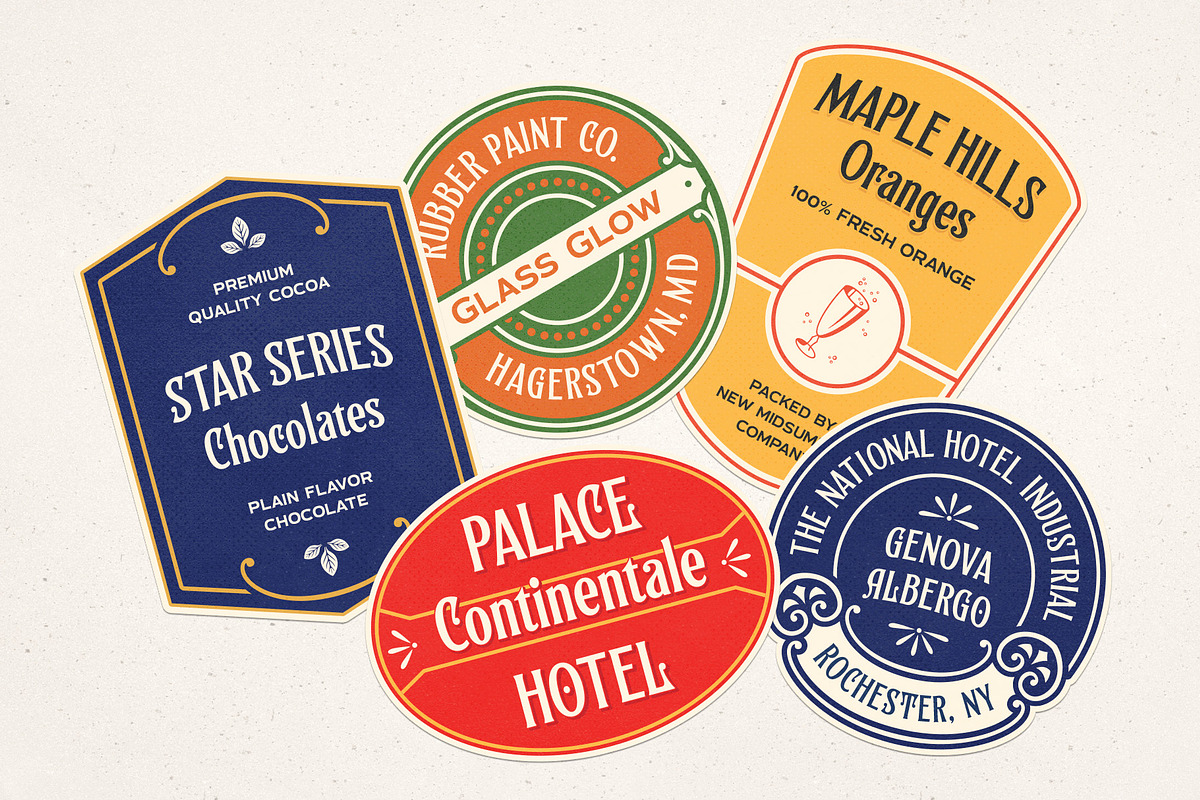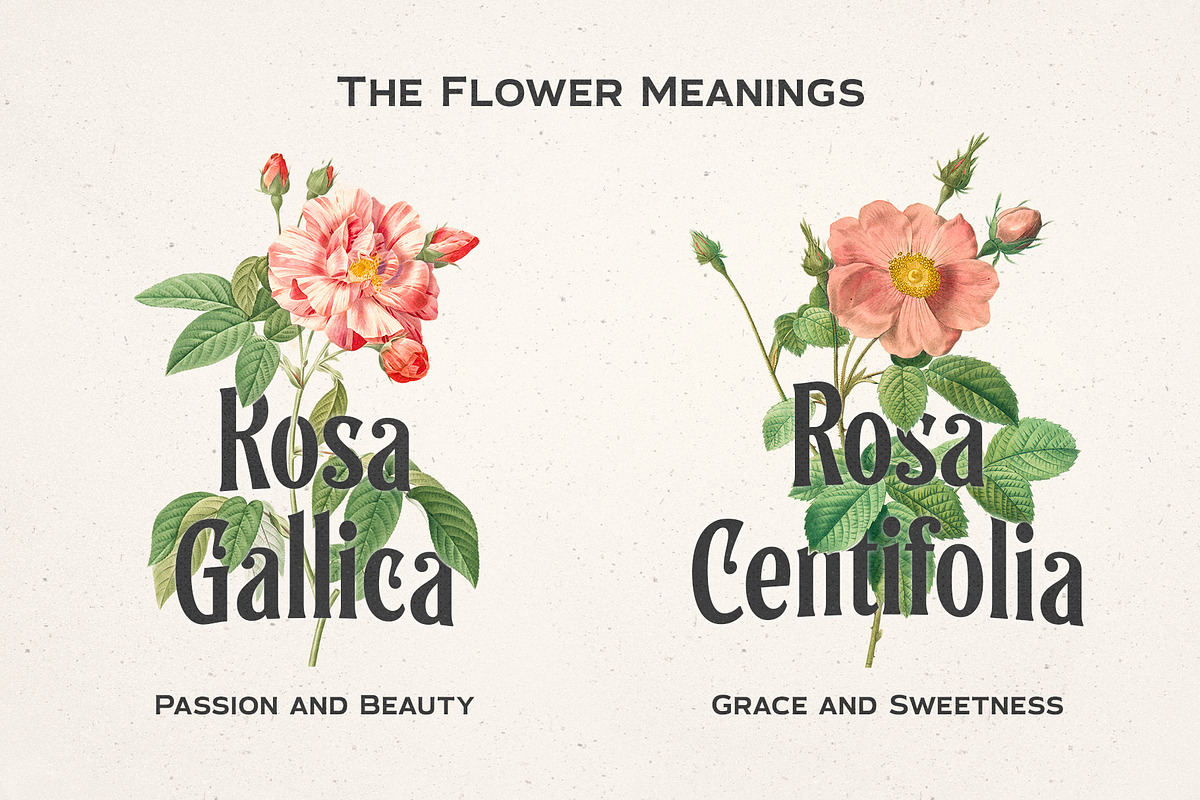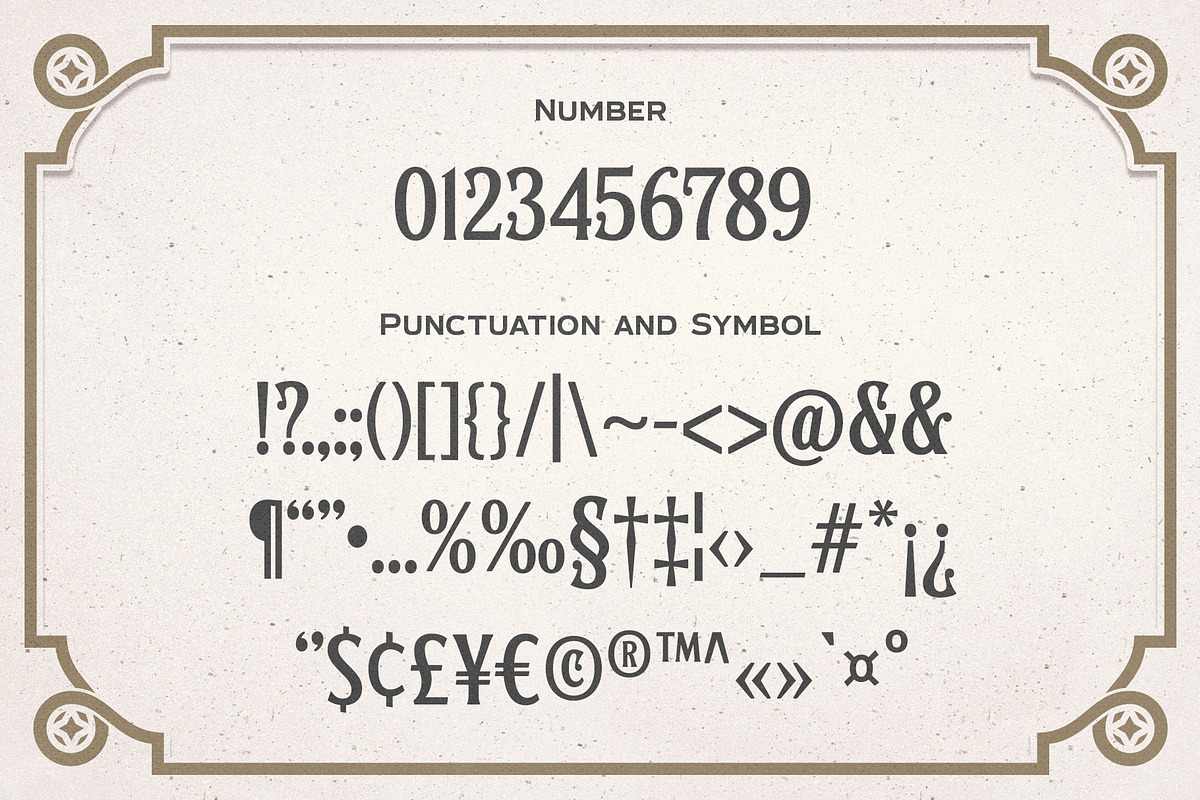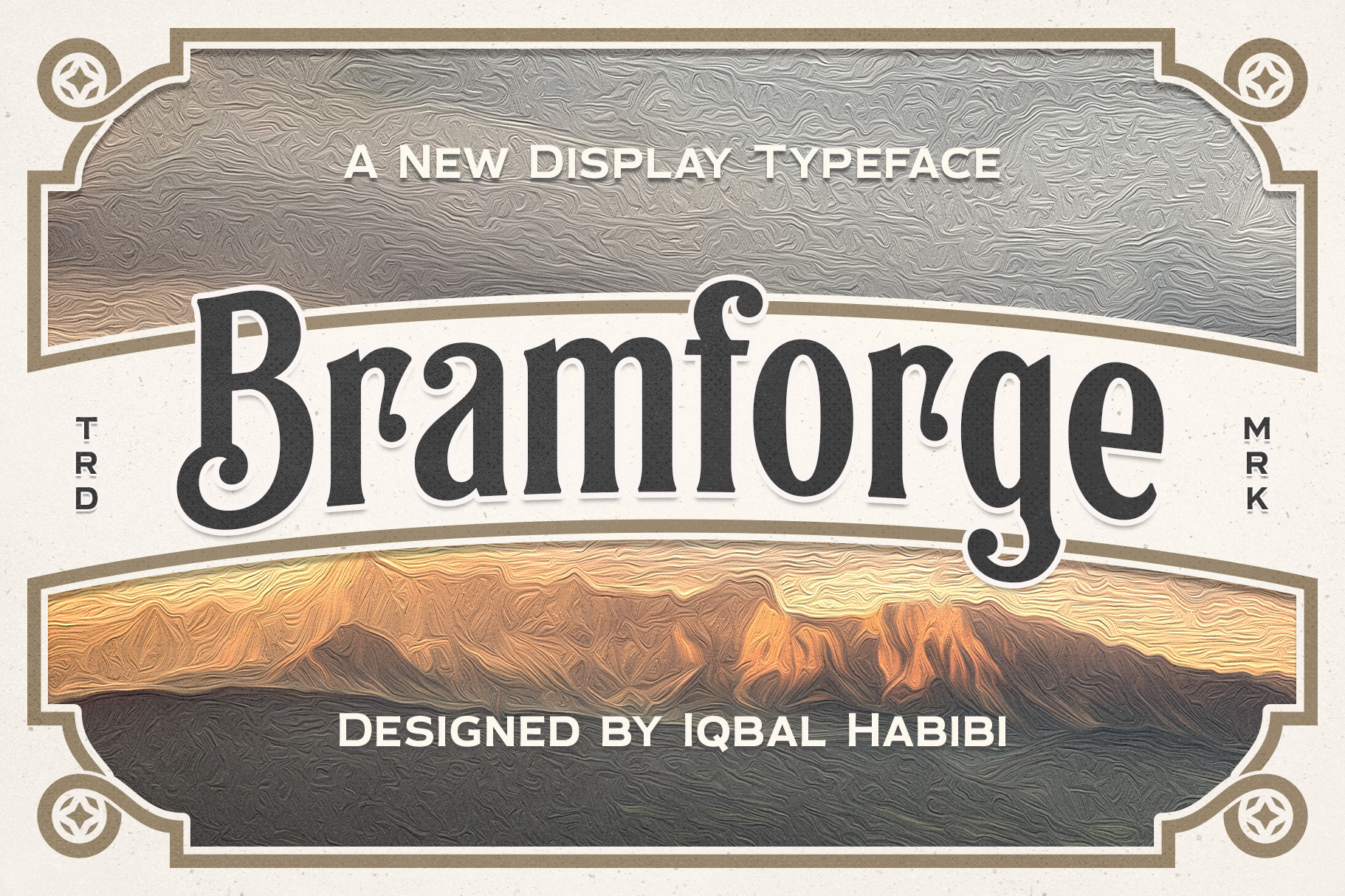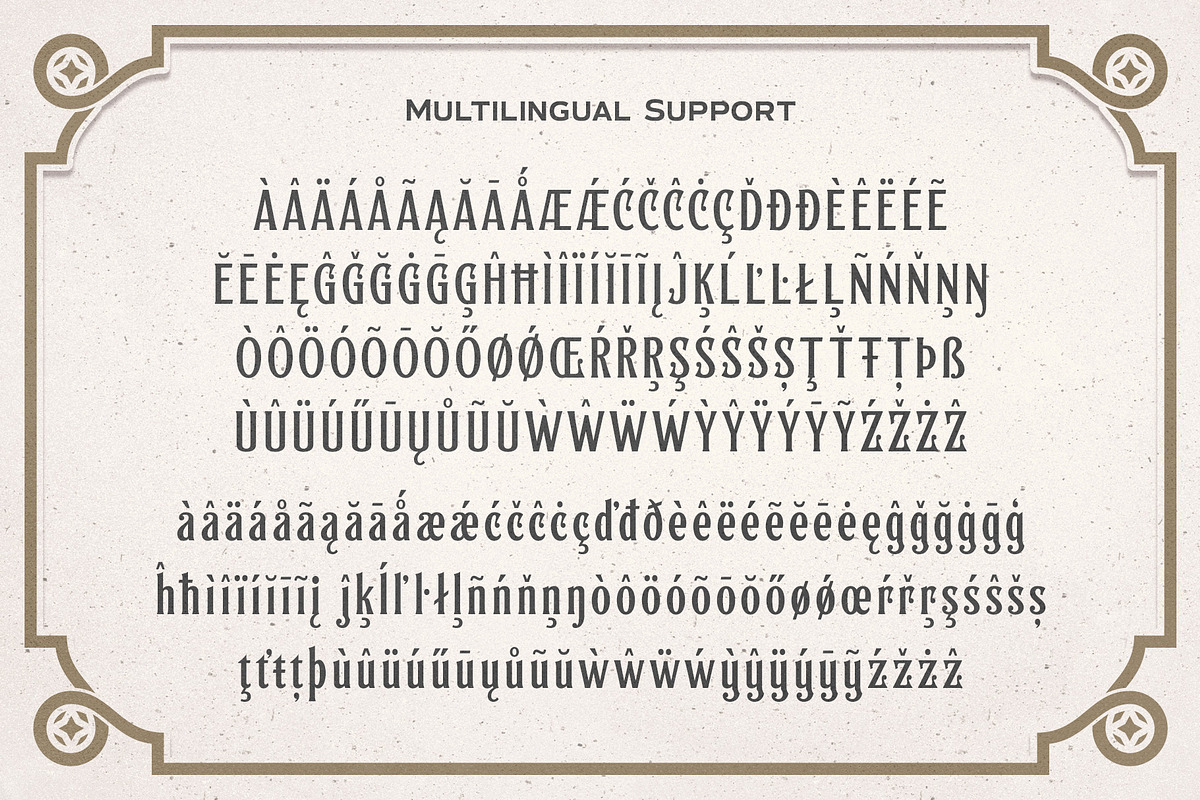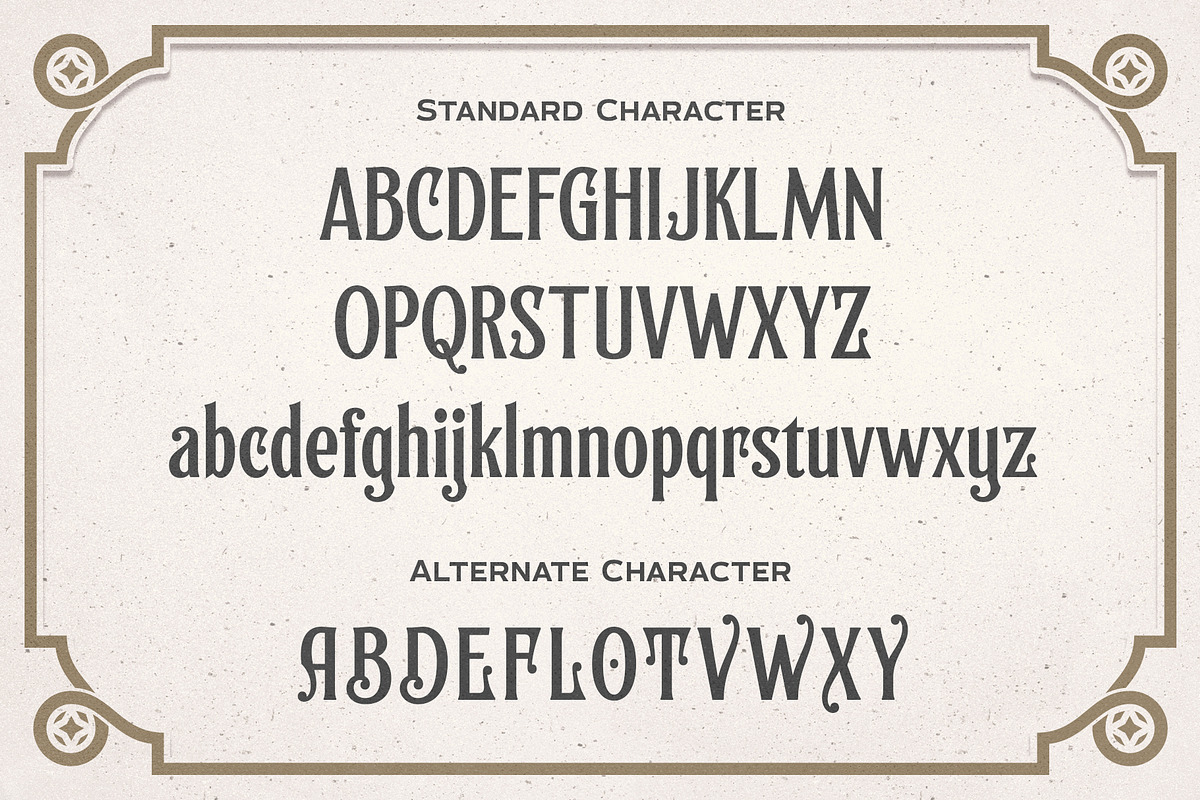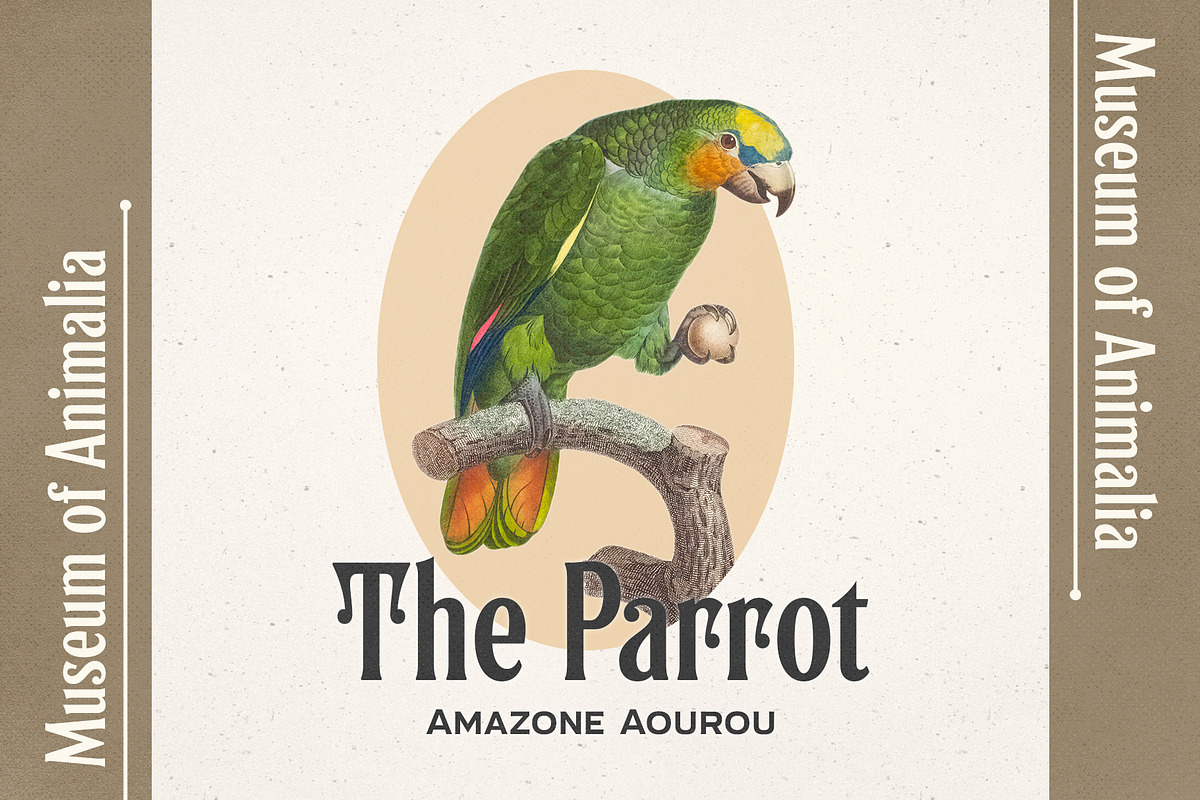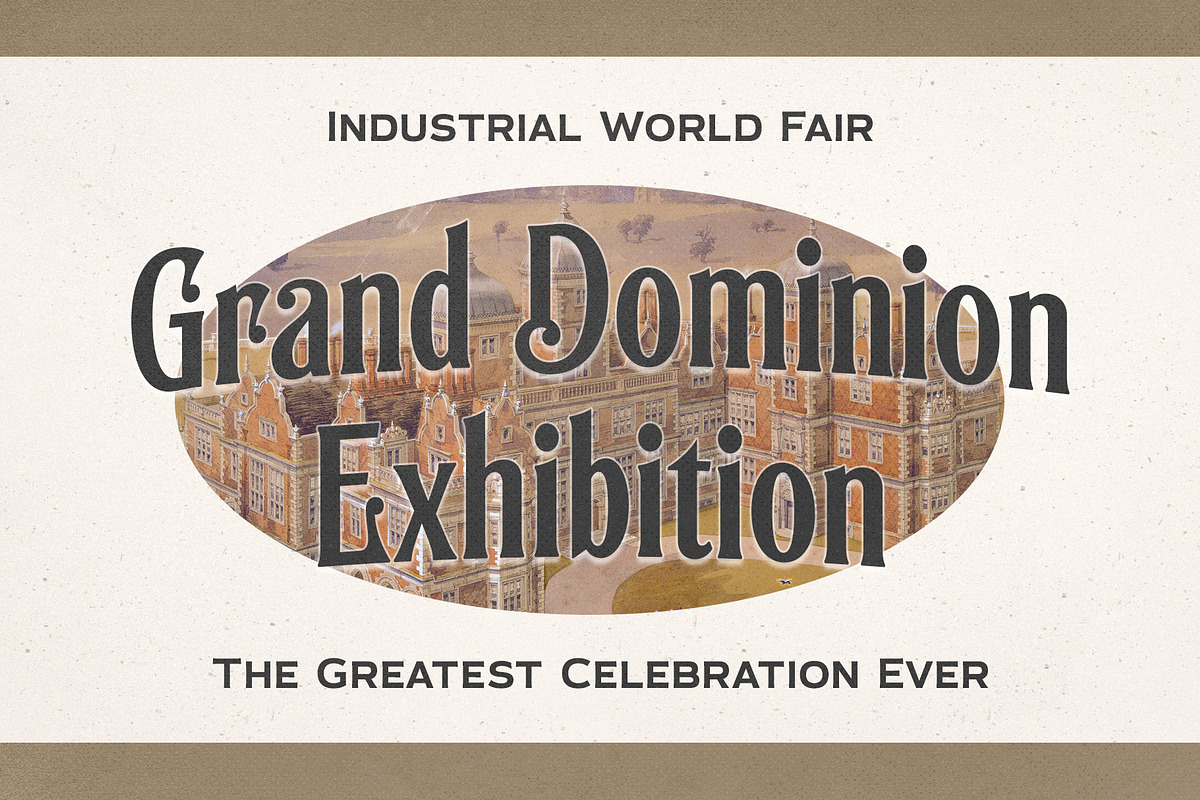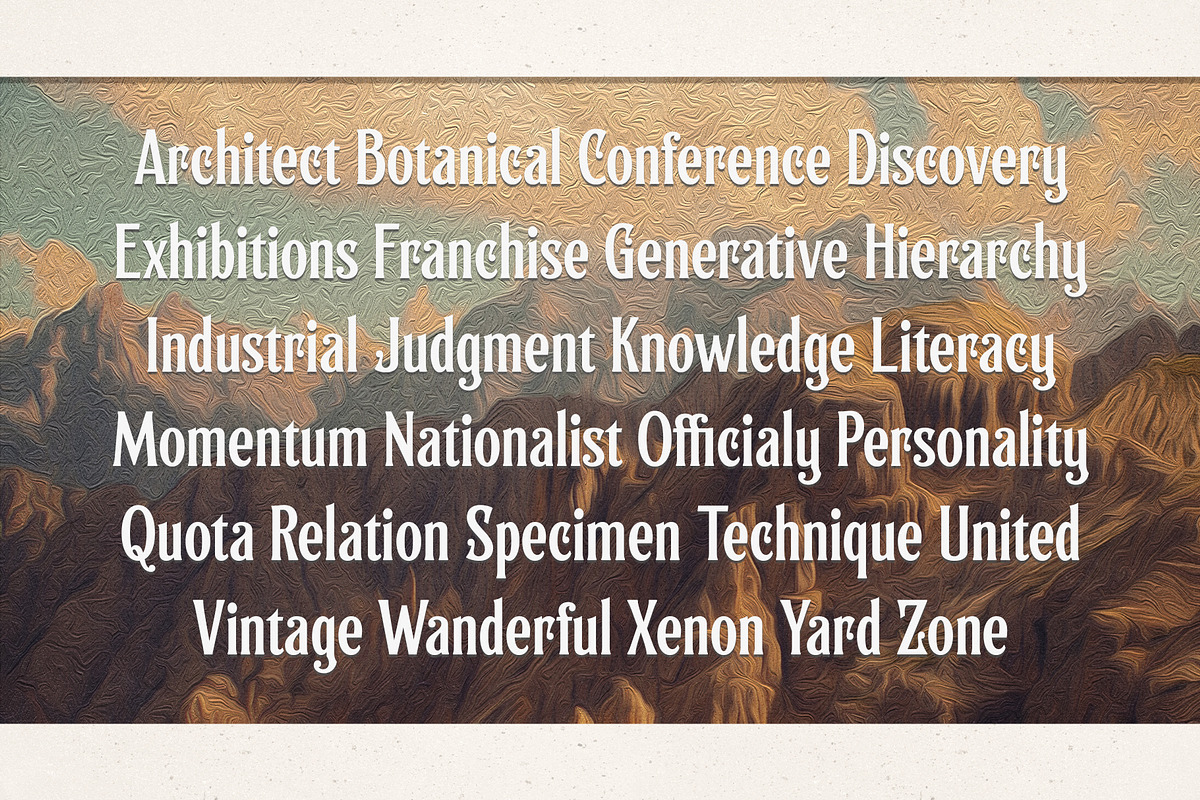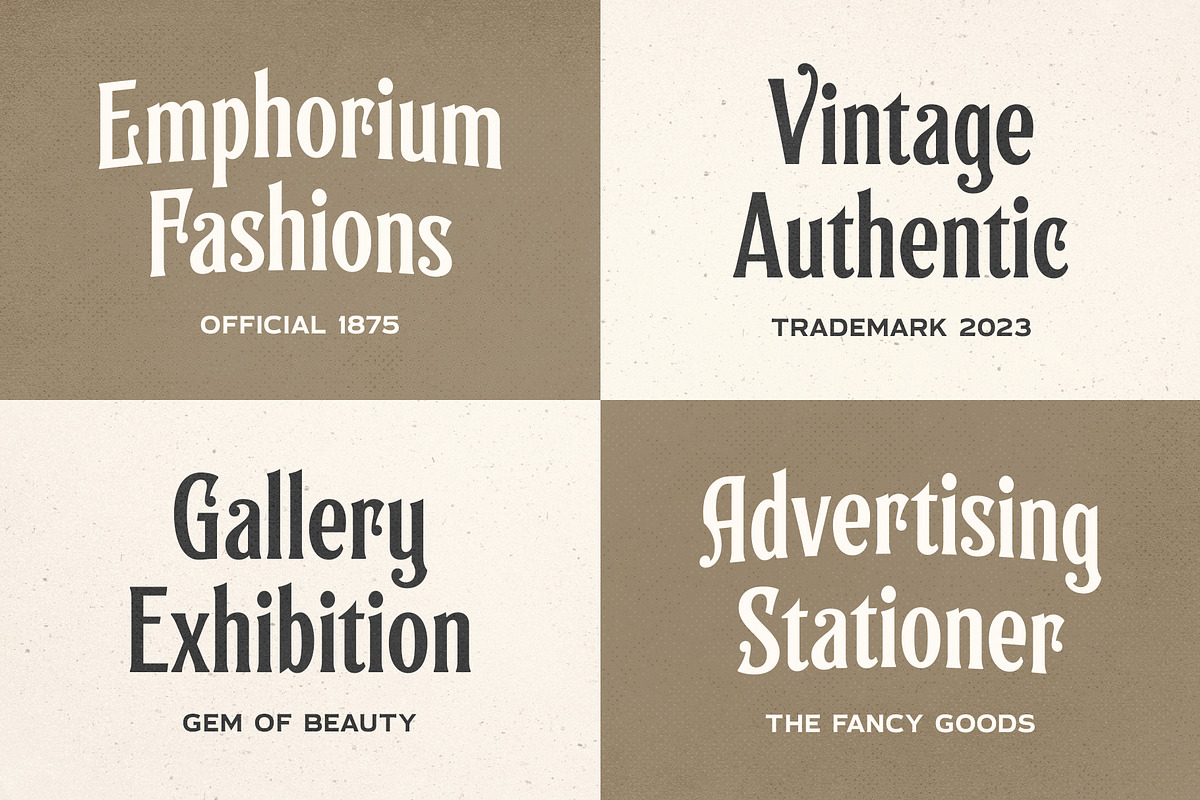
Bramforge - Display Serif Typeface
Bramforge is a display serif typeface based on the lettering design on various vintage catalog cards and labels in 19s century. Bramforge has 366 glyphs including alternate, ligature, and supports Latin Extended Language. Bramforge is perfect for display needs such as headlines, signage, logo, poster, and other graphic design projects.